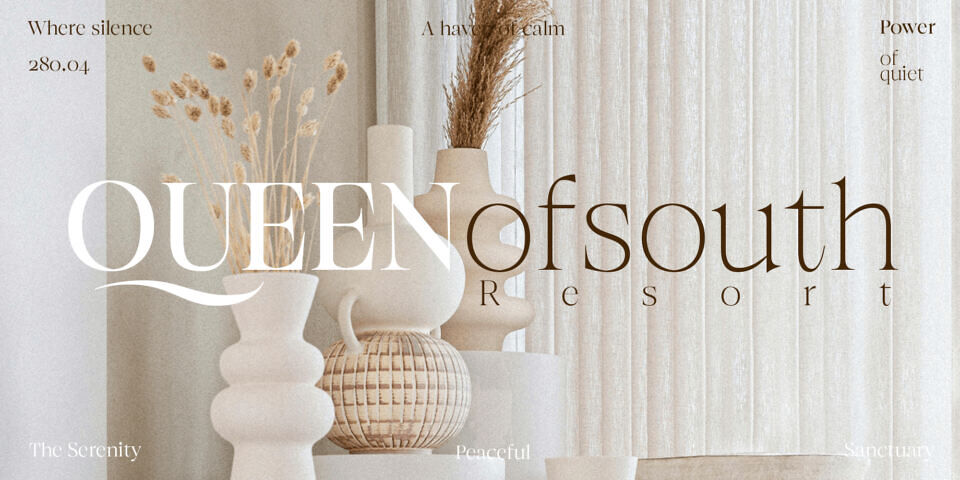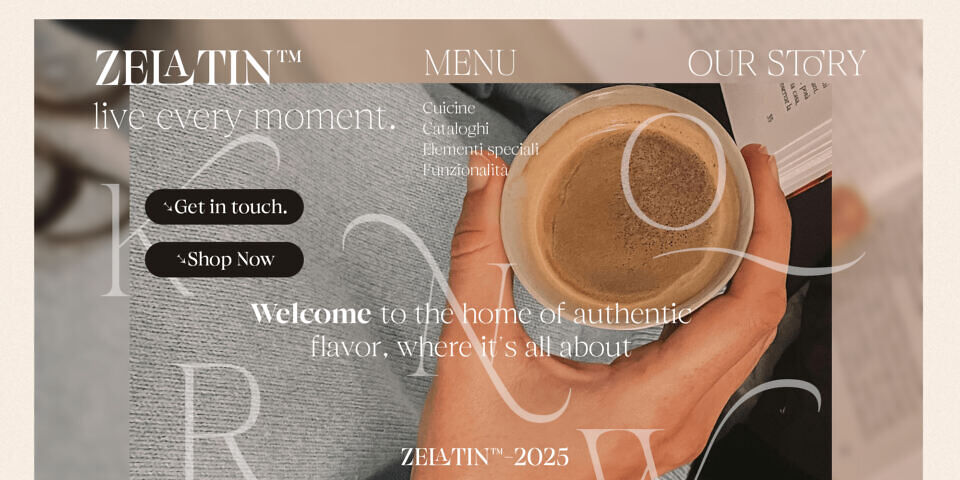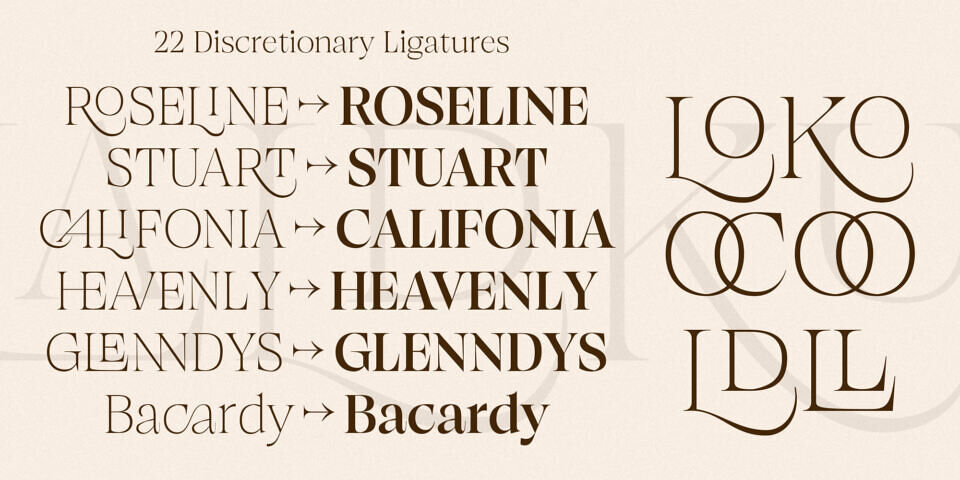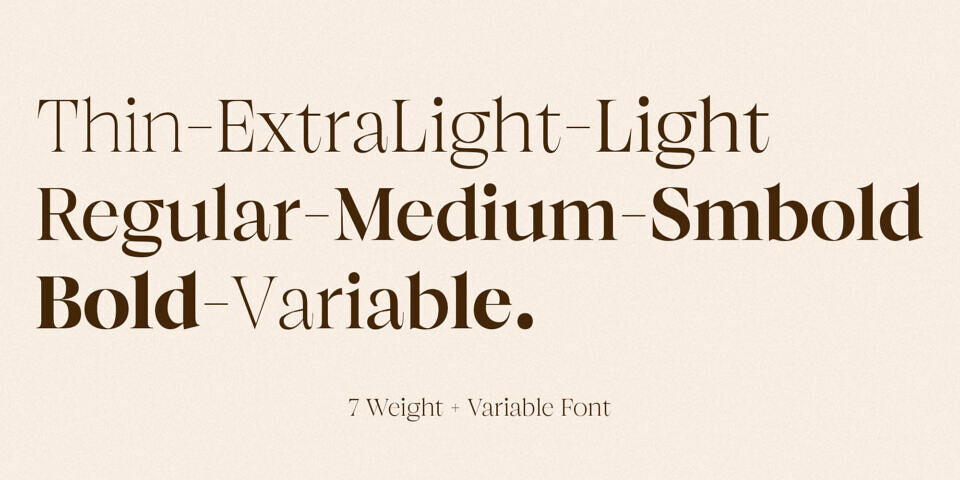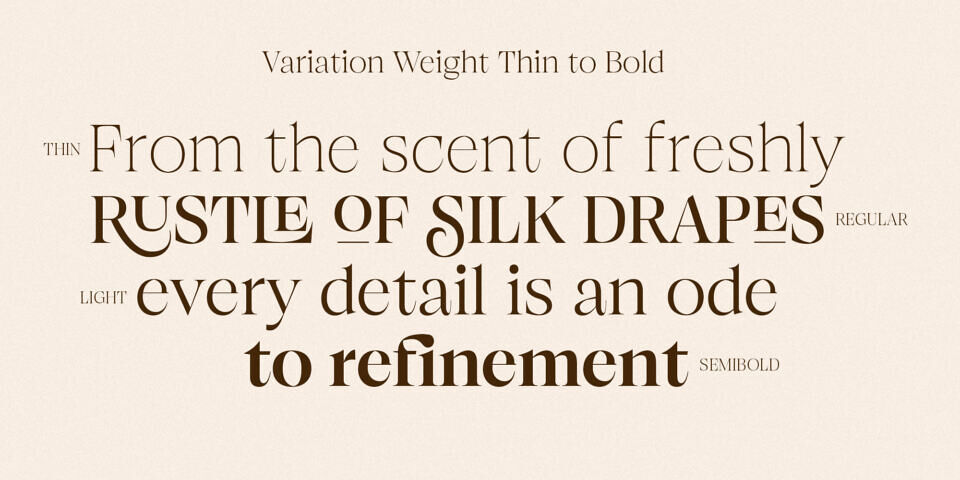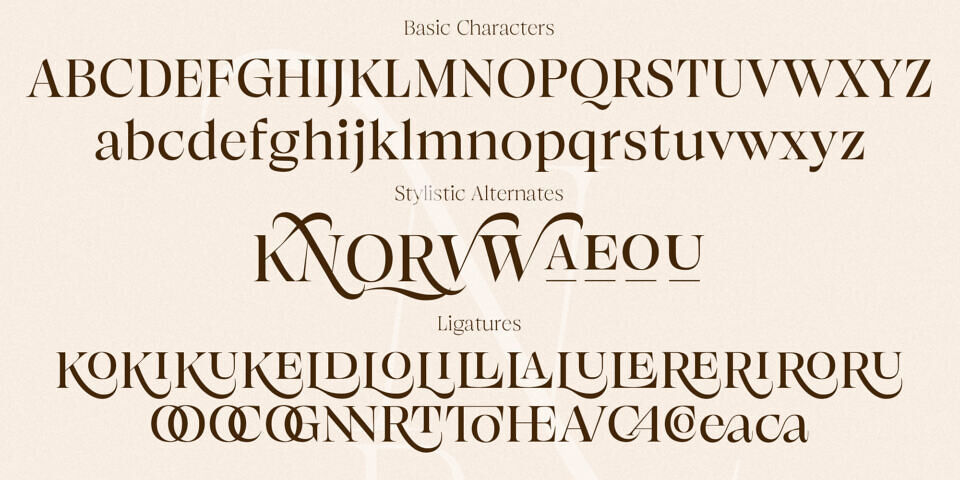
Browne de Calvin is a timeless serif typeface crafted with exquisite elegance and sophisticated precision. Designed to embody the spirit of luxury, Browne de Calvin blends the classic beauty of Roman serif tradition with a contemporary refinement, making it a perfect choice for high-end branding, editorial designs, invitations, and more.
Browne de Calvin features a rich OpenType system, offering 22 finely designed ligatures and 10 stylistic alternates to enhance your typography and unlock limitless creative possibilities. Whether you’re aiming for an editorial flourish or a minimalist aesthetic, the custom features allow you to tailor each composition beautifully.